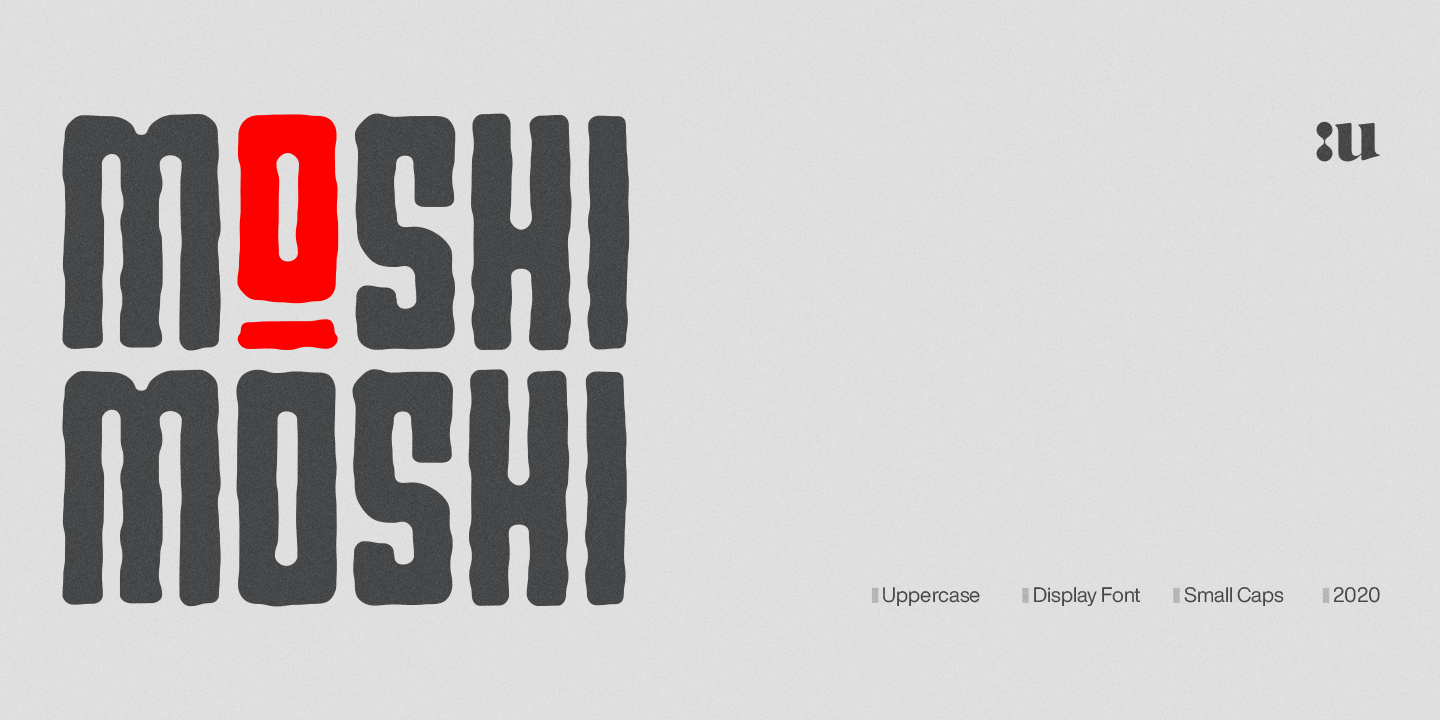
This charming typeface excels in various Japanese-inspired applications including kawaii brand identities, anime merchandise, Japanese café menus, mobile phone accessories, cute stationery designs, manga-style graphics, Tokyo street fashion labels, and friendly communication apps. The Moshi Moshi Font captures the playful spirit of Japanese phone greetings with its cheerfully rounded letterforms that bounce with kawaii energy and friendly conversation vibes.
What makes this font truly exciting is its ability to instantly create a friendly, approachable atmosphere through characters that seem to wave hello with every curve and smile with every dot. The adorably designed letters feature soft terminals, bouncy proportions, and communication-inspired details that make every word feel like a cheerful greeting from a friend. Its distinctive personality combines Japanese cuteness culture with universal friendliness, creating typography that breaks down communication barriers with pure charm.
The Moshi Moshi Font family includes conversation-ready variations: Light, Regular, Bold, Bubble styles, plus emoji-inspired alternates and decorative elements. Each family member maintains the signature friendly character while providing flexibility for creating designs that range from subtly cute to explosively kawaii.